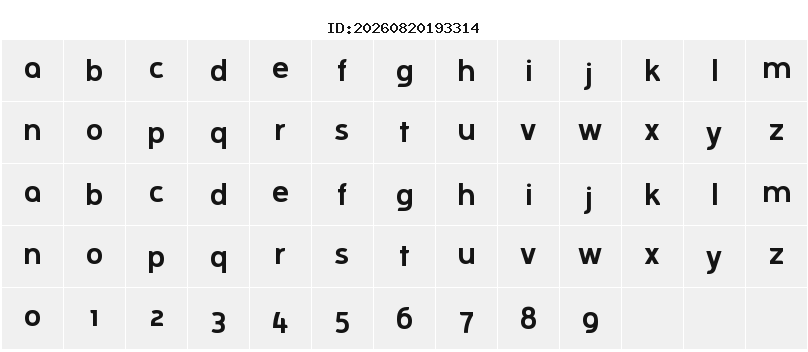
Seez Preview
• Font Name: Seez
• Font ID: Seez:Version 1.00
• Full Font Name: Seez
• PostScript Name: Seez
• Designer: Dan P. Lyons
About Seez.ttf
Seez.ttf is a modern, elegant sans-serif font designed for ultimate readability and visual harmony. Perfect for branding, headlines, web design, and print materials.